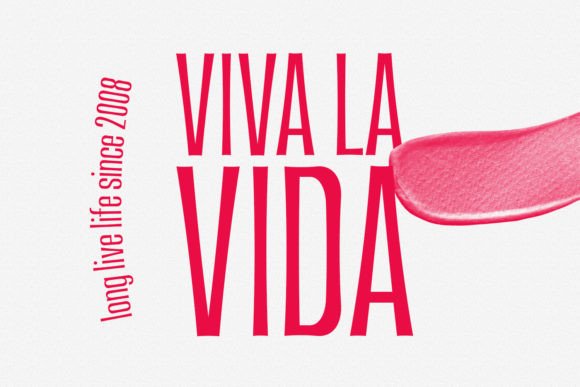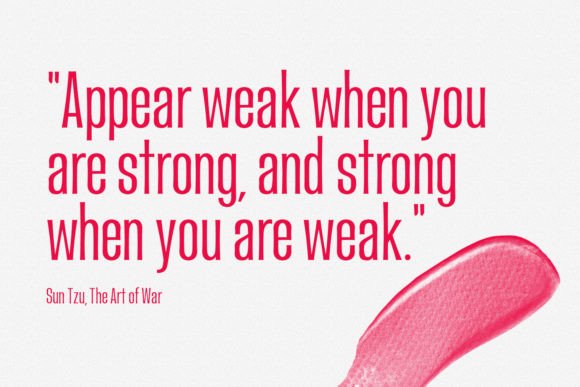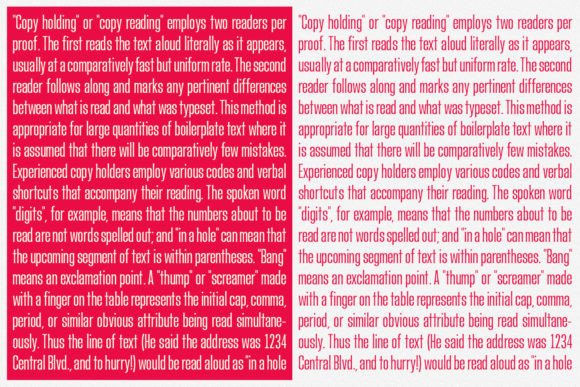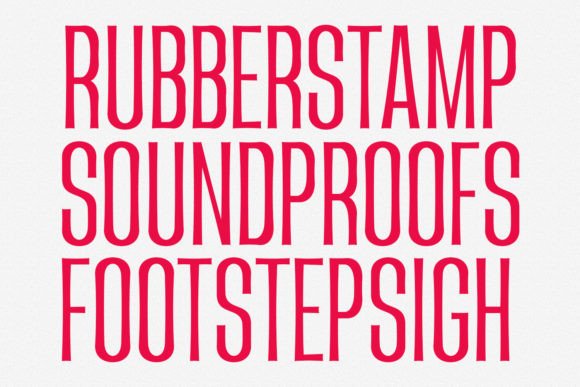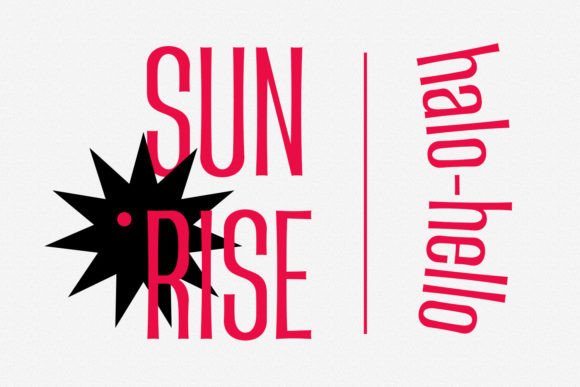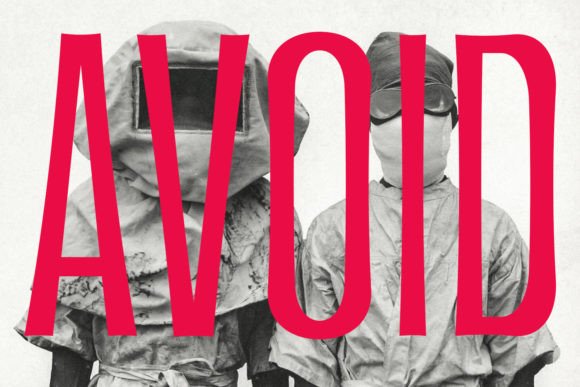
Unlocking the Power of Attiva Font
Have you ever stared at a blank page, waiting for that perfect spark to ignite your creativity? For designers, those moments of inspiration can be few and far between. But what if I told you that there’s a secret ingredient that can elevate your designs and make them truly unforgettable?
Meet Attiva Font, a modern display font that’s perfect for headlines and logos. With its sharp edges and unique style, Attiva Font is designed to make your text stand out from the crowd. Whether you’re working on a branding project or creating a marketing campaign, Attiva Font is the perfect tool to add a touch of sophistication and flair to your designs.
Key Features of Attiva Font
- Font Family: Attiva Font is a sans-serif font family with a modern and clean design.
- Unique Characteristics: Attiva Font features a distinctive geometric shape and a high x-height, making it highly legible and suitable for body text and titles.
Attiva Font Review
Attiva Font is a modern sans-serif font designed to add a touch of sophistication to digital projects. ✨ One of its strongest aspects is its versatility – it comes in 7 weights, from Light to ExtraBold, making it suitable for a wide range of applications, from body text to headlines.
Another aspect that works well is its legibility, even at small font sizes. ✨ It’s also well-suited for digital use, as it’s optimized for on-screen reading. The font’s clean and simple design makes it an excellent choice for modern websites, apps, and other digital projects.
What Could Be Improved:
- ⚠️ Limited language support – Attiva Font is primarily designed for Latin-based languages, which may limit its use for projects that require support for languages like Arabic, Chinese, or Japanese.
- ⚠️ Limited typographic features – while the font has a range of weights, it lacks some advanced typographic features like ligatures or swashes, which may be a drawback for designers who value detailed typography.
Overall, Attiva Font is a solid choice for designers who need a modern sans-serif font for digital projects. While it has some limitations, its versatility and legibility make it a great option for a wide range of applications.
Some common use cases for Attiva Font include:
- Creating modern and stylish typography for branding and marketing materials.
- Designing digital products and interfaces with a clean and minimalist aesthetic.
- Adding a touch of sophistication to presentations and reports.